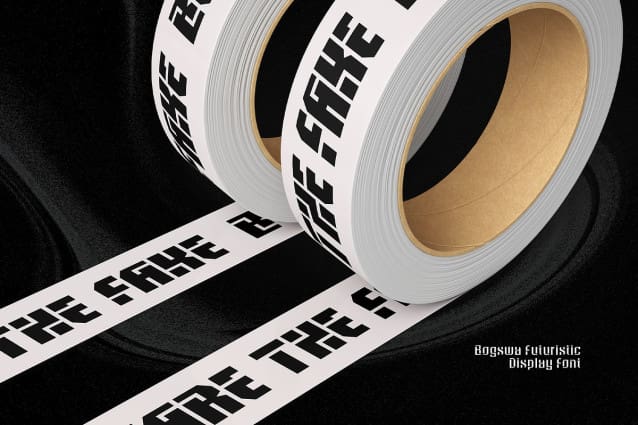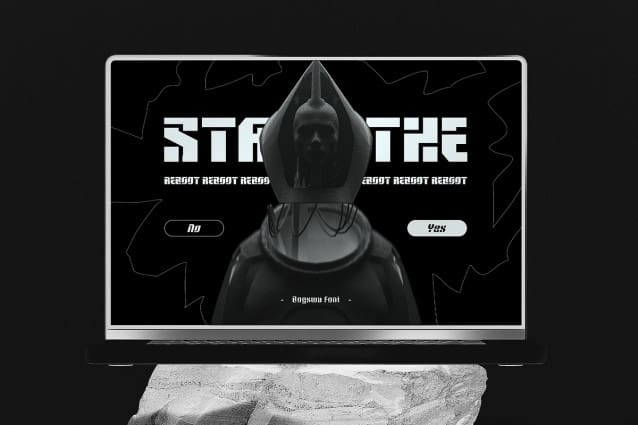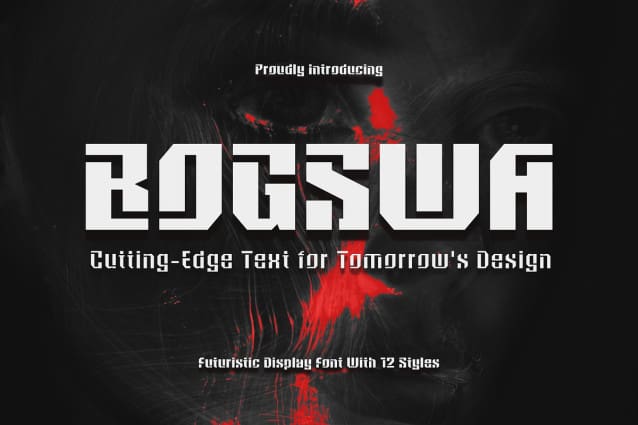
Bogswa Futuristic Font Family
Bogswa Futuristic Font Family, is a cutting-edge geometric typeface that injects a dose of futuristic style into your designs. Featuring sharp angles, clean lines, and a bold stencil aesthetic, Bogswa propels your projects into the future. What make’s Bogswa special is because of the Crisp angles and clean lines create a sense of modernity and technological advancement, The bold stencil style adds a touch of industrial edge and a unique visual texture, Customize your text and tailor it to your specific design needs with a staggering 12 different styles available.